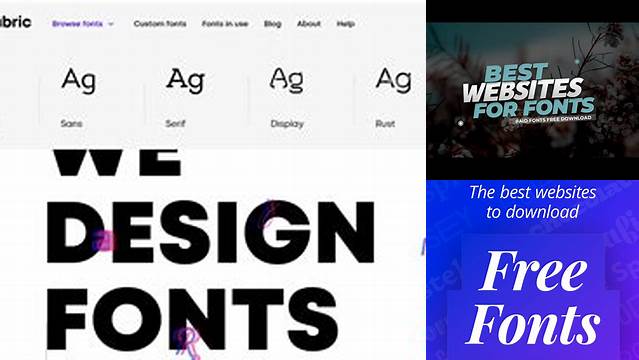
Download Paid Fonts Free: Best Websites & Tips
Hey guys! Ever been in a situation where you found the perfect font for your project, only to realize it costs more than your entire budget? We've all been there! Finding the right font can be crucial for making your design pop, whether it's for a website, a logo, or even just a cool poster. But shelling out cash for every font you need? That can get expensive fast. So, the big question is: can you download paid fonts for free? Well, let's dive into that, explore some options, and talk about the legal and ethical ways to get your hands on those awesome fonts without breaking the bank. We'll cover everything from font licensing to fantastic websites that offer free alternatives or even paid fonts at a discount. Stick around, because we're about to unlock a world of typography that won't cost you a dime!
2. Free Font Websites: A Treasure Trove
Okay, let's get to the good stuff! There are tons of websites out there offering free fonts, and many of them are seriously amazing. These aren't just your basic, run-of-the-mill fonts either. We're talking about high-quality, beautifully designed typefaces that can elevate your projects. Websites like Google Fonts, Font Squirrel, and DaFont are goldmines for free fonts. Google Fonts is especially awesome because it's specifically designed for web use, meaning the fonts are optimized for fast loading times and look great on screens. Font Squirrel is another great option, with a huge selection of fonts that are all licensed for commercial use. DaFont has a massive library, though it's always a good idea to double-check the license on individual fonts, as they can vary. So, if you are looking to download paid fonts for free, these sites are great place to start.
3. Google Fonts: Your Go-To Resource
Let's zoom in on Google Fonts for a minute because it's such a fantastic resource. It's more than just a collection of fonts; it's a carefully curated library of open-source fonts that are free to use for any project, personal or commercial. One of the best things about Google Fonts is that they're incredibly easy to use. You can browse the fonts directly on the Google Fonts website, filter by categories like serif, sans-serif, or handwriting, and even see how they look with your own text. Once you've found a font you like, you can download it to your computer or, even better, embed it directly into your website with just a few lines of code. This means your website will load fonts quickly and efficiently, which is great for user experience and SEO. Plus, because Google hosts the fonts, you don't have to worry about hosting them yourself. Seriously, if you're looking to download fonts, Google Fonts should be one of your first stops.
4. Font Squirrel: Free for Commercial Use
Next up, let's talk about Font Squirrel. This website is a gem for anyone looking for free fonts that are safe for commercial use. This means you can use these fonts in projects that you'll be selling, like logos, websites, or merchandise, without worrying about licensing issues. Font Squirrel is really picky about the fonts they feature, so you can be sure that everything you find there is high-quality and legally usable. They also offer a handy tool called the Font Identifier, which lets you upload an image of a font and try to identify it. This is super useful if you've seen a font you like but don't know the name of it. Font Squirrel's dedication to providing commercial-use fonts makes it a fantastic resource for designers, entrepreneurs, and anyone who needs fonts for professional projects. If you are looking to download paid fonts for free, Font Squirrel is worth checking out.
5. DaFont: A Massive Font Library
DaFont is another major player in the world of free fonts. This website boasts a huge collection of fonts, covering everything from basic sans-serifs and serifs to decorative, handwritten, and even pixel fonts. Seriously, you can find just about any style you're looking for on DaFont. The sheer volume of fonts available can be a little overwhelming, but DaFont has a pretty good system for categorizing and filtering fonts, so you can usually find what you need with a little digging. Now, here's the important thing about DaFont: the licensing varies from font to font. Some fonts are free for personal use only, while others are free for commercial use. Always, always check the license information before you use a font from DaFont, just to be safe. But if you're willing to do a little bit of license checking, DaFont is an amazing resource for finding unique and interesting fonts for your projects. You might be able to download paid fonts for free, depending on the license.
6. Other Great Font Resources
While Google Fonts, Font Squirrel, and DaFont are the big three, there are plenty of other great font resources out there. Websites like 1001 Free Fonts, Creative Fabrica (which often has freebies), and MyFonts (which has a mix of free and paid fonts) are worth checking out. Each of these sites has its own unique selection and licensing terms, so it's always a good idea to explore and see what's available. Don't be afraid to branch out and try different font sources! You might just stumble upon your new favorite font in an unexpected place. Exploring other font resources can be a good way to download paid fonts for free.
7. Free Font Alternatives to Popular Paid Fonts
Okay, so what if you have your heart set on a specific paid font, but you just can't justify the price tag? The good news is that there are often free font alternatives that capture the same feel and style as those pricey fonts. For example, if you love Helvetica but don't want to pay for it, you might check out Inter or Roboto, which are both excellent free sans-serif fonts. If you're looking for something similar to Futura, Montserrat could be a great option. There are tons of articles and blog posts online that compare popular paid fonts with their free counterparts. A little bit of research can help you find a fantastic free font that's just as beautiful and effective as the paid version you had your eye on. So, you can essentially download paid fonts for free if you find a good alternative.
8. Identifying Fonts: Tools and Techniques
Ever seen a font you loved and wished you knew what it was? There are some cool tools and techniques you can use to identify fonts. We already mentioned Font Squirrel's Font Identifier, which is a great option. You can upload an image of the font, and the tool will try to match it to fonts in its database. Another popular option is WhatTheFont, which works in a similar way. You can also try describing the font in a font forum or community. Often, font enthusiasts are happy to help you track down a mystery typeface. Knowing how to identify fonts can be super helpful when you're looking for free alternatives. For example, if you know the name of a paid font you like, you can search for similar fonts on Google Fonts or Font Squirrel. These tools make it easier to download what looks like paid fonts for free.
9. Font Bundles: A Cost-Effective Solution
If you're a font fanatic or a professional designer, you might want to consider font bundles. These are collections of fonts that are sold together at a discounted price. Often, you can get dozens or even hundreds of fonts for the price of just a few individual fonts. Websites like Creative Market and Design Cuts regularly offer font bundles, and they can be a fantastic way to build up your font library without breaking the bank. Just be sure to check the licensing terms of the bundle before you buy it, to make sure the fonts are suitable for your intended use. Font bundles can be a cost-effective way to download what you might otherwise have to pay for individually.
30. Final Thoughts: Typography is Key
In conclusion, typography is key to effective design. Choosing the right fonts can make a huge difference in the look and feel of your projects. While paid fonts can be amazing, there are also tons of fantastic free options available. By understanding font licensing, exploring free font resources, and being mindful of ethics, you can build a beautiful and versatile font library without breaking the bank. So go forth, experiment with different typefaces, and create something amazing! Remember, you can find creative ways to download paid fonts for free through alternatives, bundles, and careful license consideration. Happy designing!